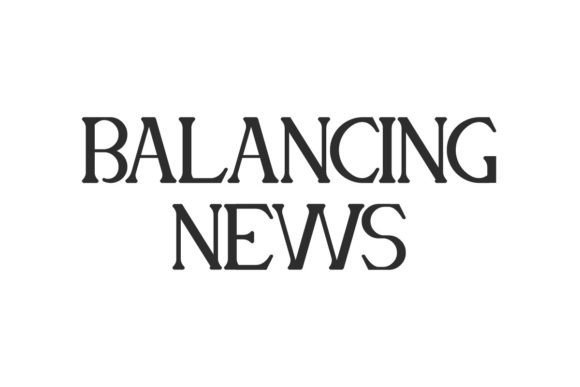
Discover the Perfect Harmony for Your Designs
As a designer, there’s that one moment when you’re scrolling through your feeds and stumble upon a typography piece that instantly captures your attention. Maybe it’s the way the words dance across the screen, or the way the font seems to jump off the page. Whatever it is, it sparks an idea and gets your creative juices flowing. For us, that moment came when we laid eyes on the Balancing News Font – a beautiful, contemporary serif display font designed to elevate your designs to new heights.
Balancing News Font is more than just a font – it’s a tool that helps you communicate your message with clarity and style. Whether you’re working on an app, a billboard, or a business card, this versatile font will help you strike the perfect balance between form and function. With its clean lines and elegant flair, Balancing News Font is the perfect addition to any designer’s toolkit.
Key Features of Balancing News Font
- Unique Characteristics: This font family is designed to provide a balanced and harmonious reading experience, with a unique blend of modern and classic elements that make it suitable for use in a wide range of applications, including news, magazines, and books.
- Font Metrics: This font family is designed to meet the highest standards of font metrics, including x-height, cap height, and baseline, ensuring that it is easy to read and use in a variety of contexts.
Design Review: Balancing News Font
As a designer, I’ve had the chance to work with many fonts, but the Balancing News Font caught my attention with its unique blend of elegance and modernity. Here are my thoughts on what works well and what could be improved.
- Unique Line Spacing: The font’s line spacing is quite generous, making it perfect for long articles or news stories where readability is crucial.
- Legible at Various Sizes: The font is easily readable in both large and small sizes, making it suitable for a variety of applications, from headlines to body text.
- Neutral Aesthetic: The font’s design is neutral and doesn’t lean too heavily on any particular style, making it versatile and easy to pair with other design elements.
- Lack of Personality: While the font is neutral, it may lack the personality and character that some designers crave.
- Not Ideal for Display Text: The font’s design may not be the best choice for display text, such as headings or titles, where a bolder font may be more effective.
Overall, the Balancing News Font is a solid choice for any project that requires a clean, modern, and easy-to-read font. While it may not be the most exciting or attention-grabbing font, it gets the job done and provides a professional look and feel.
Balancing News Font is commonly used in:
- News articles and blogs
- Magazine and newspaper layouts
- Infographics and data visualizations
Tips for Getting the Most Out of Balancing News Font
To get the most out of Balancing News Font, keep the following tips in mind:
- Use it in combination with other fonts to create a balanced typography.